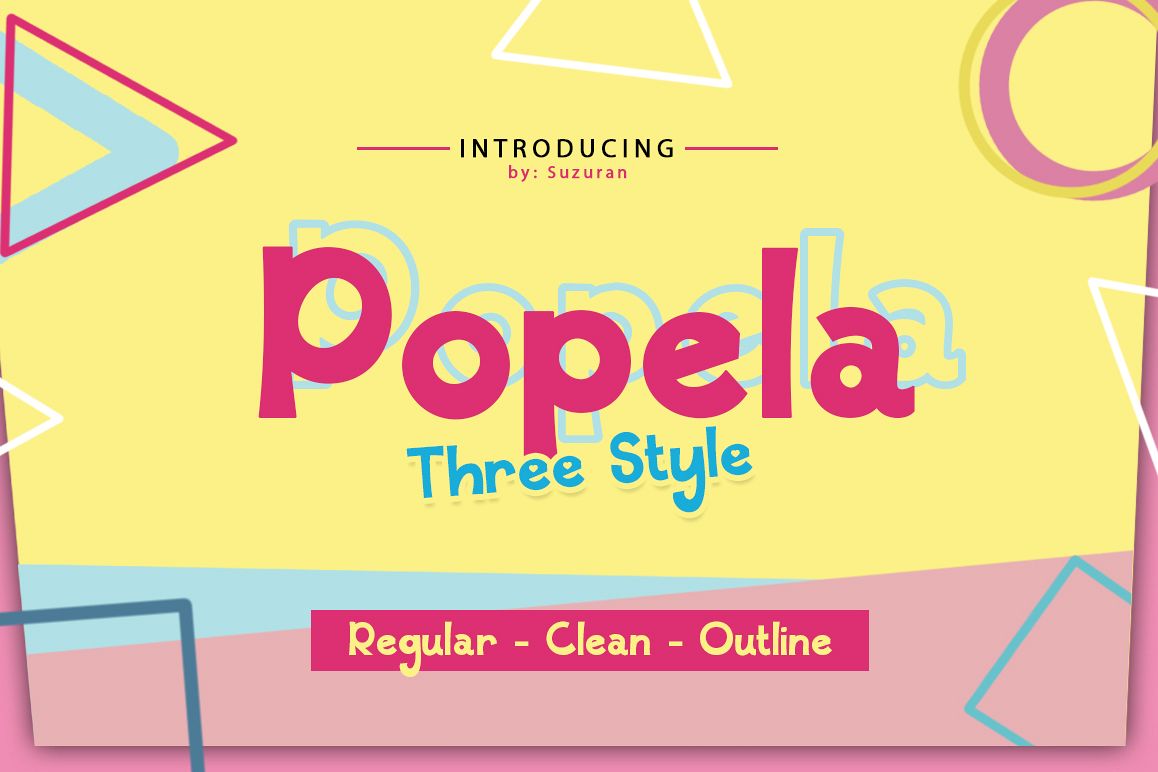
Popela font with cheerful theme for your fun project. Popela font has 3 different styles, regular, clean & outline. Popela font suitable for logo, branding, greeting card, branding, poster and any design that you create.
Featured:- Uppercase
- Numeral & Symbol
- Multilanguage